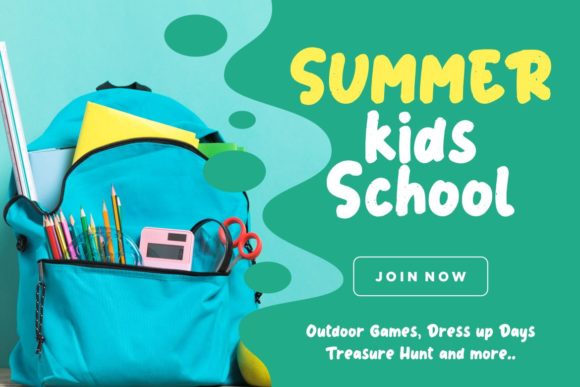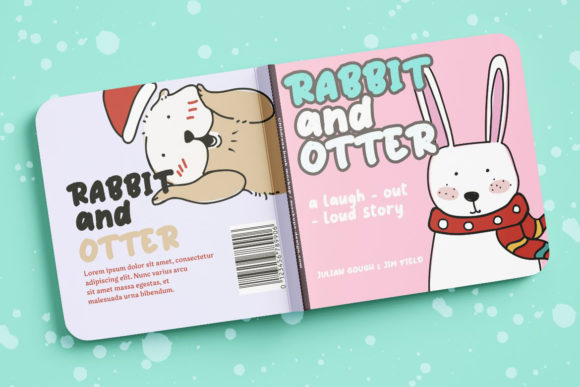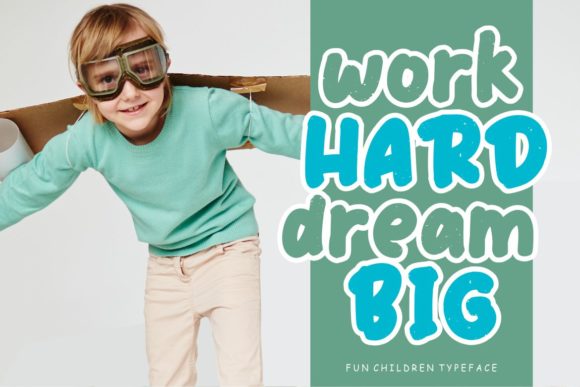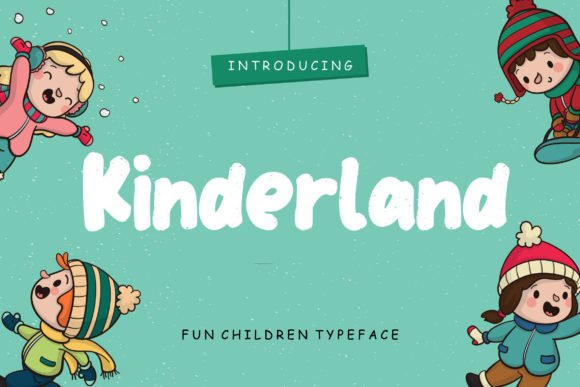
Introduction to Kinderland Font
Kinderland is a fun display font.
It features a relaxed and whimsical style that makes it perfect for children and kindergarten crafting projects Kinderland is perfect for branding projects, logo, social media posts, advertisements, product packaging, product designs, label, photography, watermark, stationery and much more.